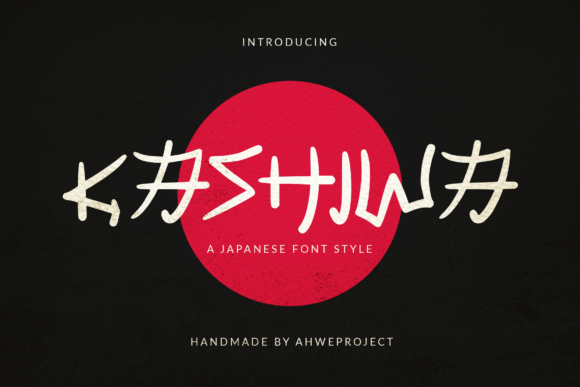
Japanese-inspired elegance awaits with the captivating Kashiwa font, a beautiful blend of tradition and modernity that will ignite your creativity.
Crafted by the skilled hands of ahweproject, Kashiwa embodies the enigmatic charm of Japanese culture, offering a distinctive display font that elevates your designs with an exotic flair. As a display font, Kashiwa is an exquisite choice for headlines, posters, and branding that demands attention.
Whether you're seeking to create invitations with a touch of oriental allure, craft social media posts that exude uniqueness, or design logos that evoke a sense of ancient wisdom, Kashiwa is your font of choice. Its versatility extends to crafting projects, adding a personalized touch to scrapbook pages, greeting cards, and any endeavor where your imagination runs wild.
Immerse yourself in the beauty of Japanese symbols, rendered with impeccable precision and a captivating aesthetic that brings your designs to life. Each character dances across the page like a delicate brushstroke, carrying the weight of history and the promise of endless creative possibilities.
Indulge in the charm of Kashiwa, a font that transports you to a realm of Japanese artistry. Let its intricate strokes inspire your next masterpiece and experience the joy of creating designs that captivate and enchant. Embrace the power of Kashiwa and let your creativity flourish!